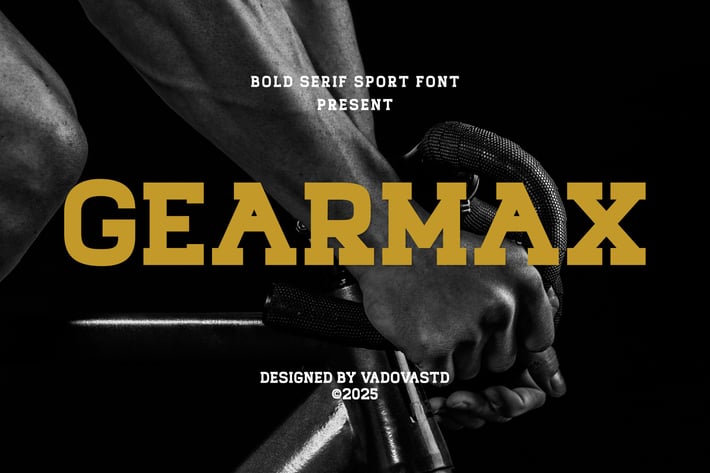
Gearmax Serif Font
Gearmax is a bold sport serif font built for high-impact typography in athletic branding, racing graphics, fitness posters, and competitive event visuals. Its strong, blocky letterforms and solid slab-serif structure deliver power, confidence, and visibility—perfect for headlines, jersey numbers, esports identity, gym branding, outdoor banners, and sports merchandise. Comes in all caps with numerals and punctuation, making it ideal for both print and digital layouts. Provided in OTF, TTF, and WOFF formats for full design flexibility.
Relevance and Use Cases is perfect for sports branding, gym logos, racing typography, championship posters, fitness apparel labels, athletic social media graphics, esport team identity, outdoor event signage, strong editorial headlines, varsity display type, and bold product packaging titles.
Main Features
Uppercase & Lowercase characters
* Numeral & Punctuations
Relevance and Use Cases is perfect for sports branding, gym logos, racing typography, championship posters, fitness apparel labels, athletic social media graphics, esport team identity, outdoor event signage, strong editorial headlines, varsity display type, and bold product packaging titles.
Main Features
Uppercase & Lowercase characters
* Numeral & Punctuations